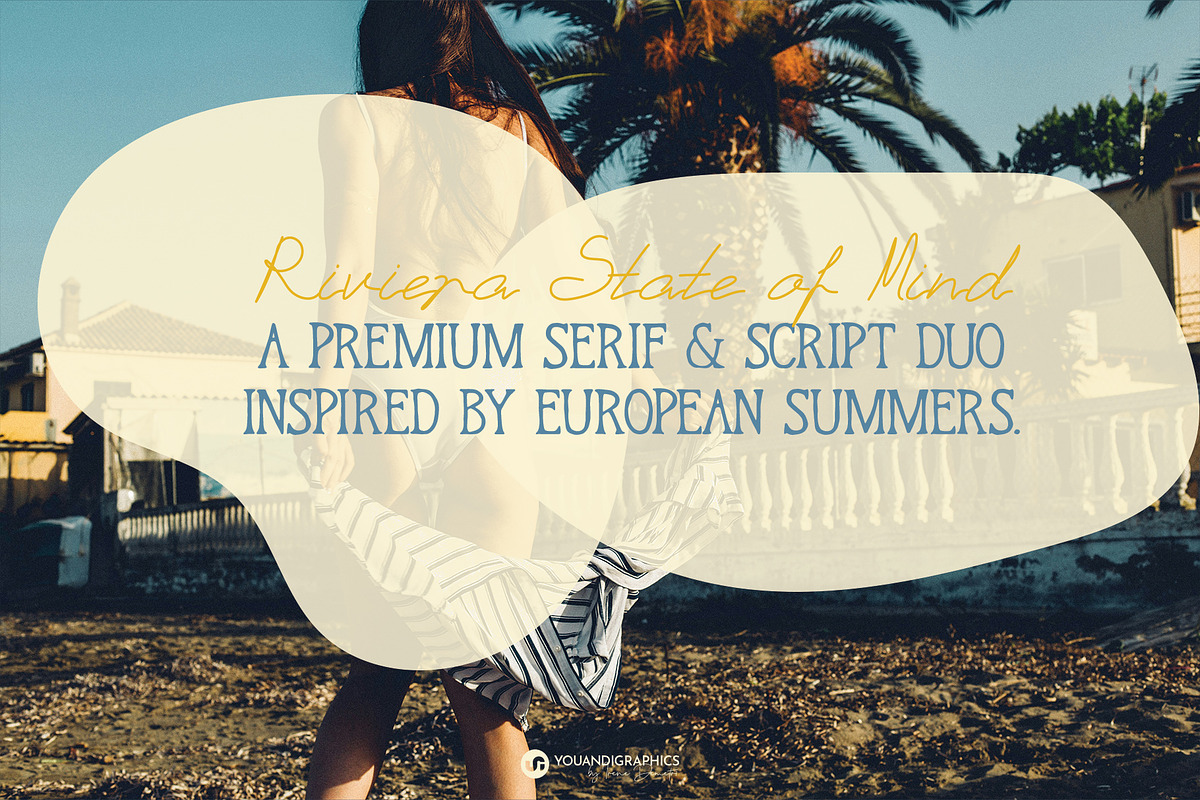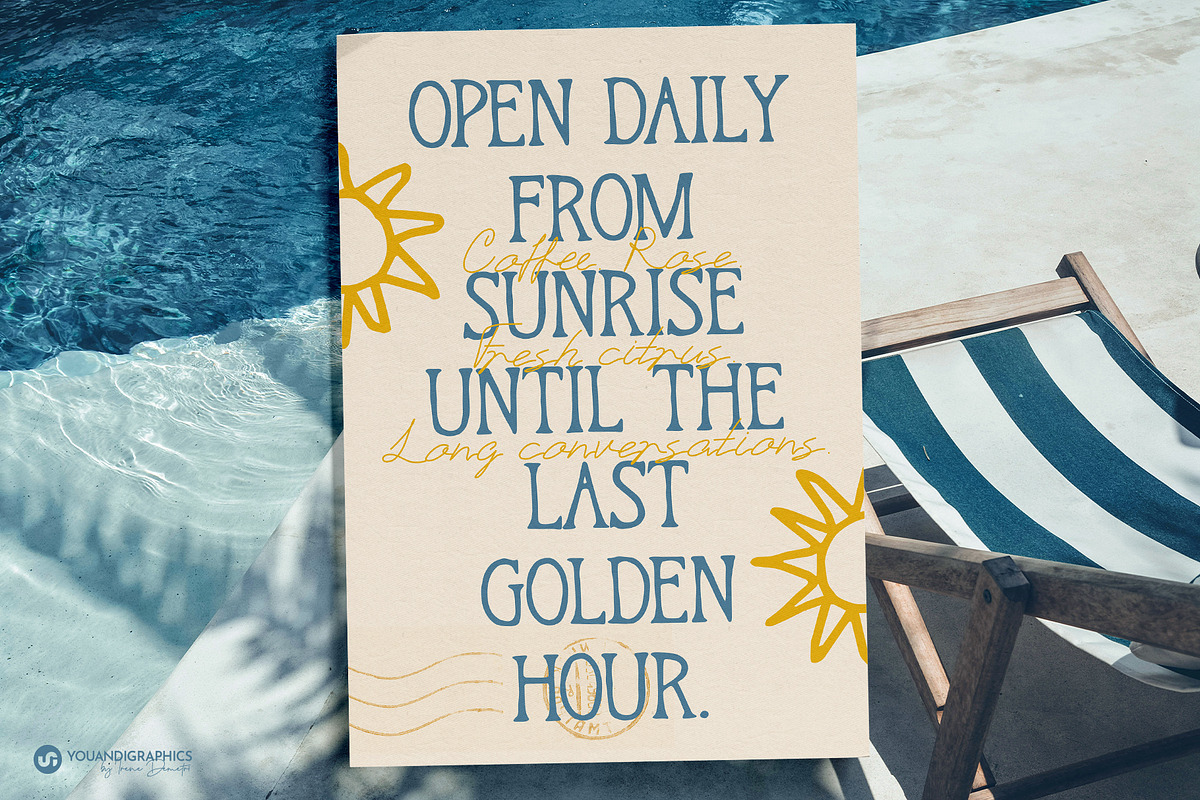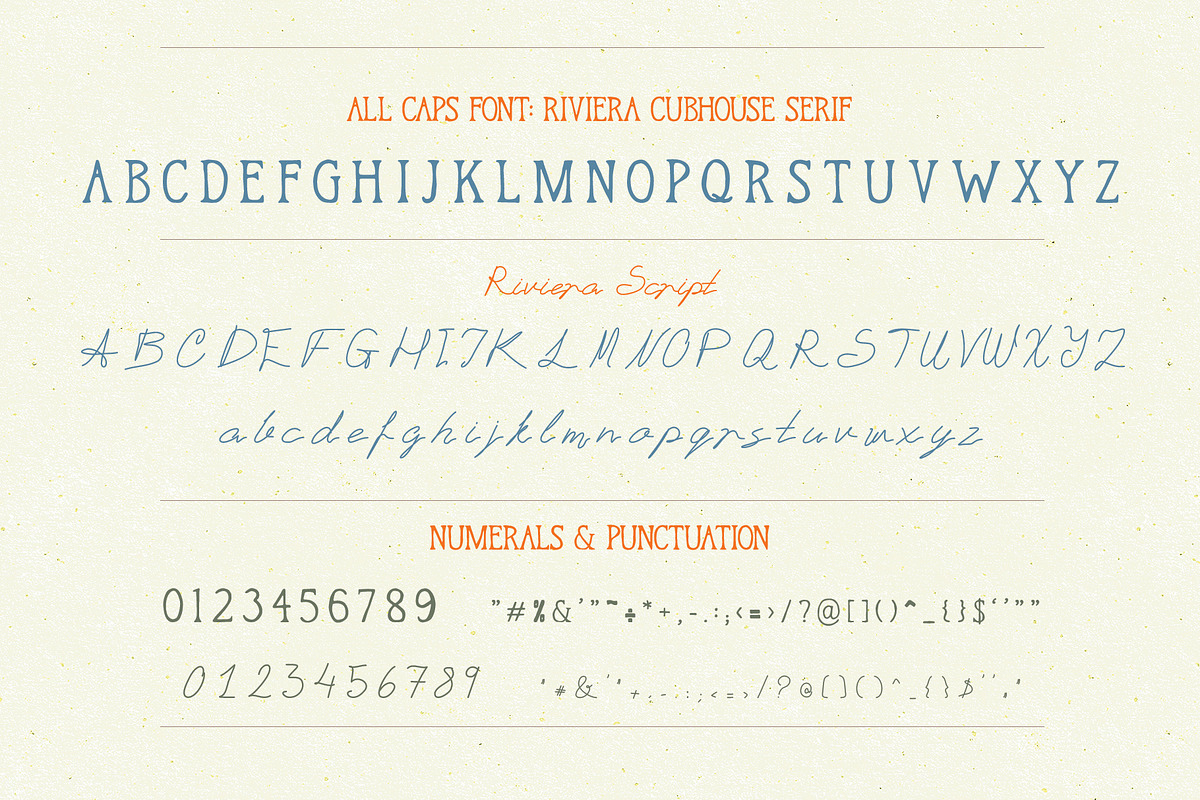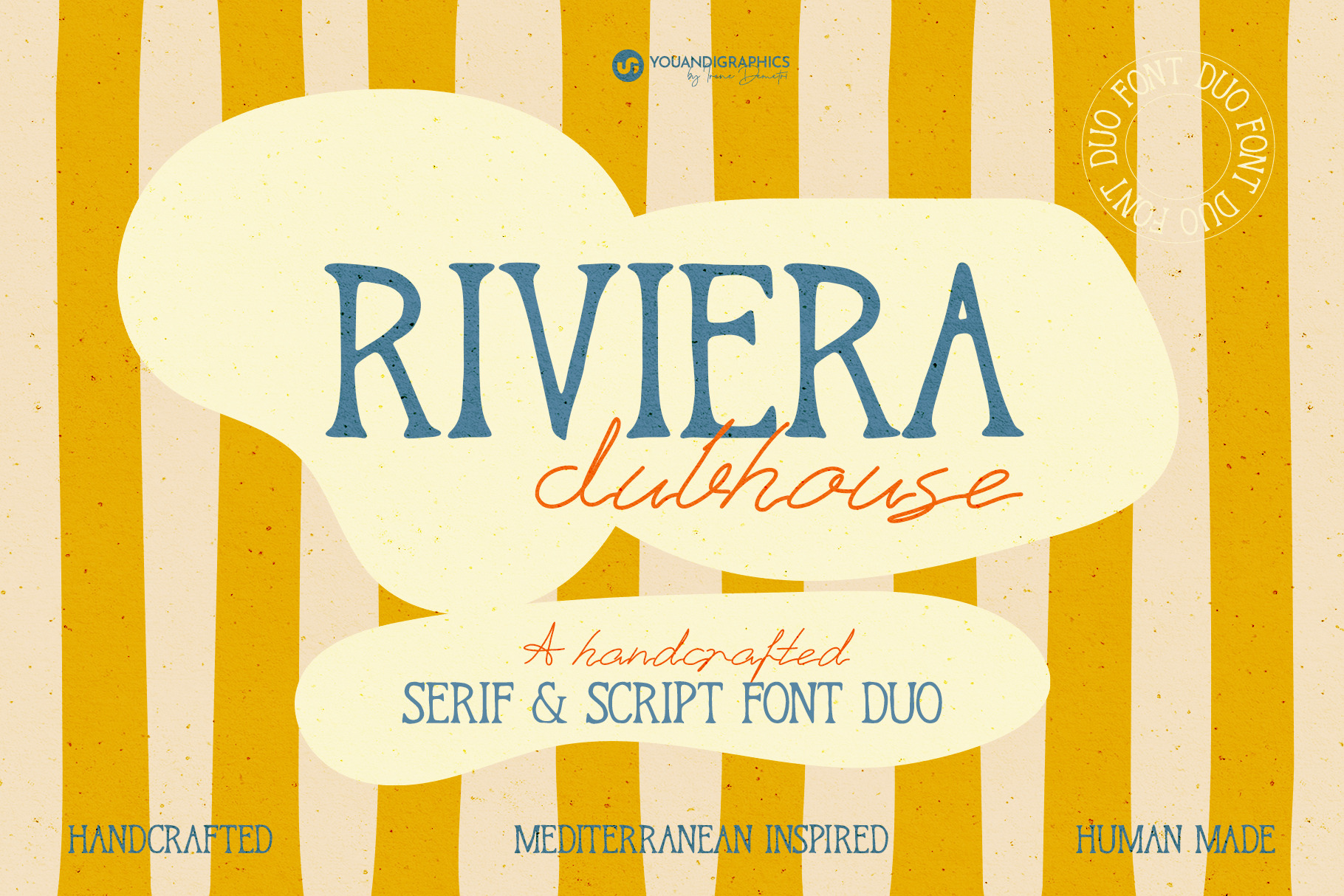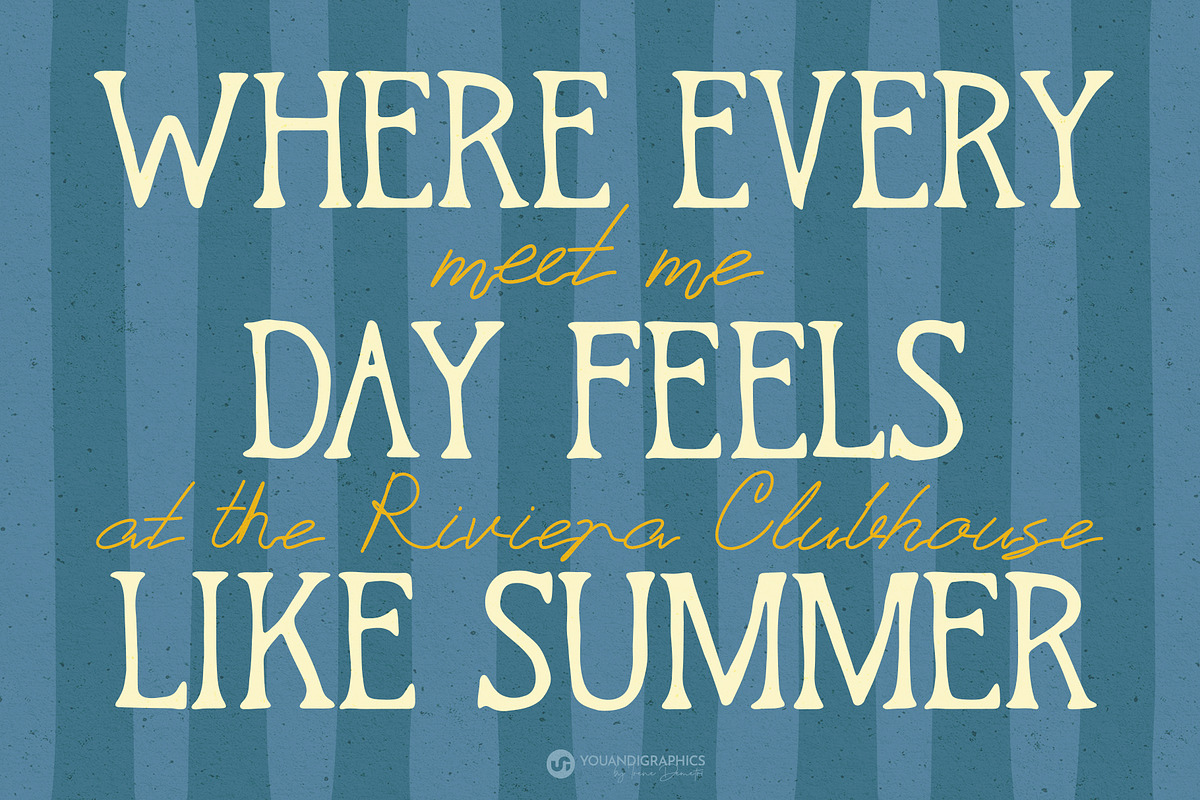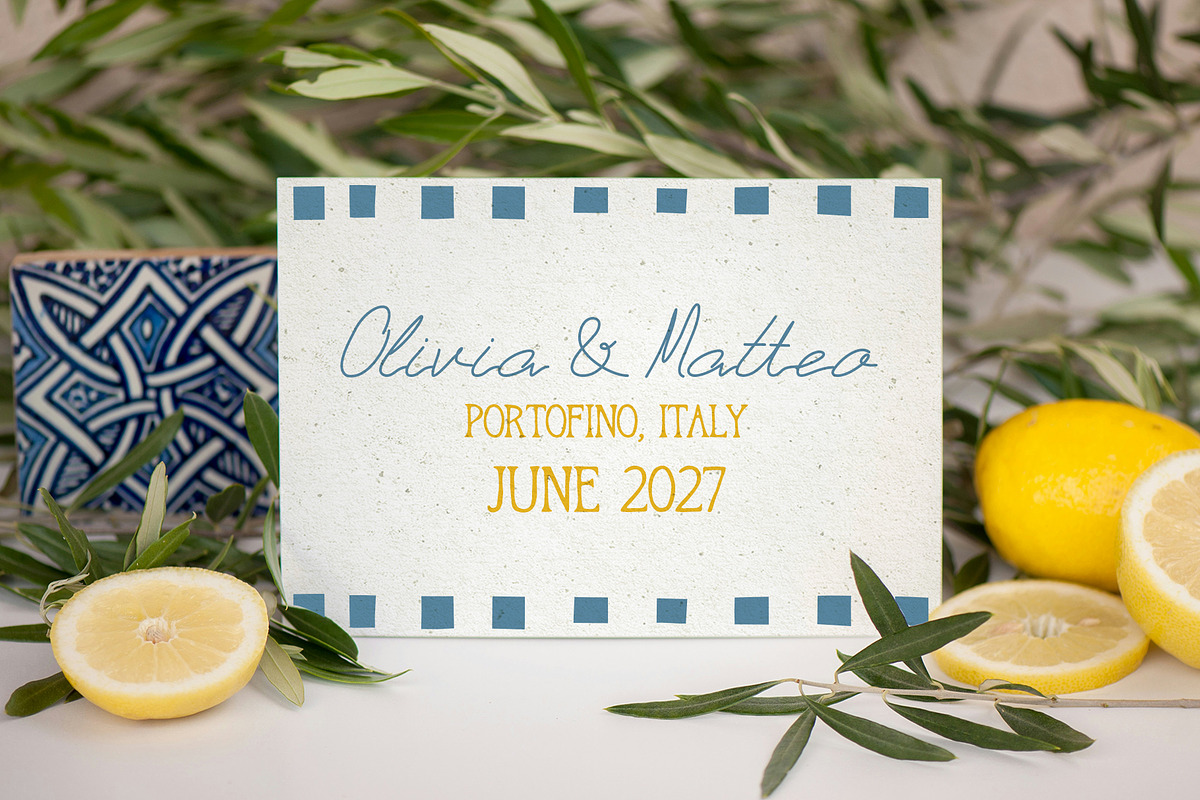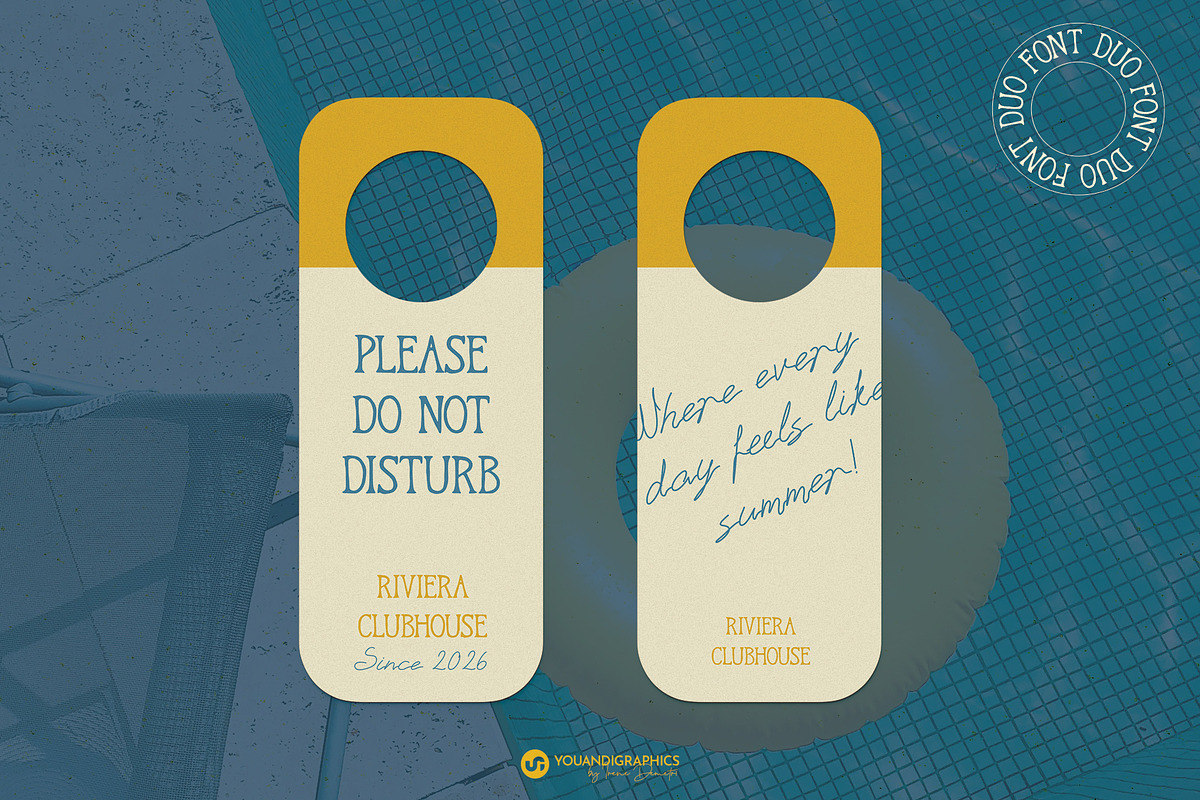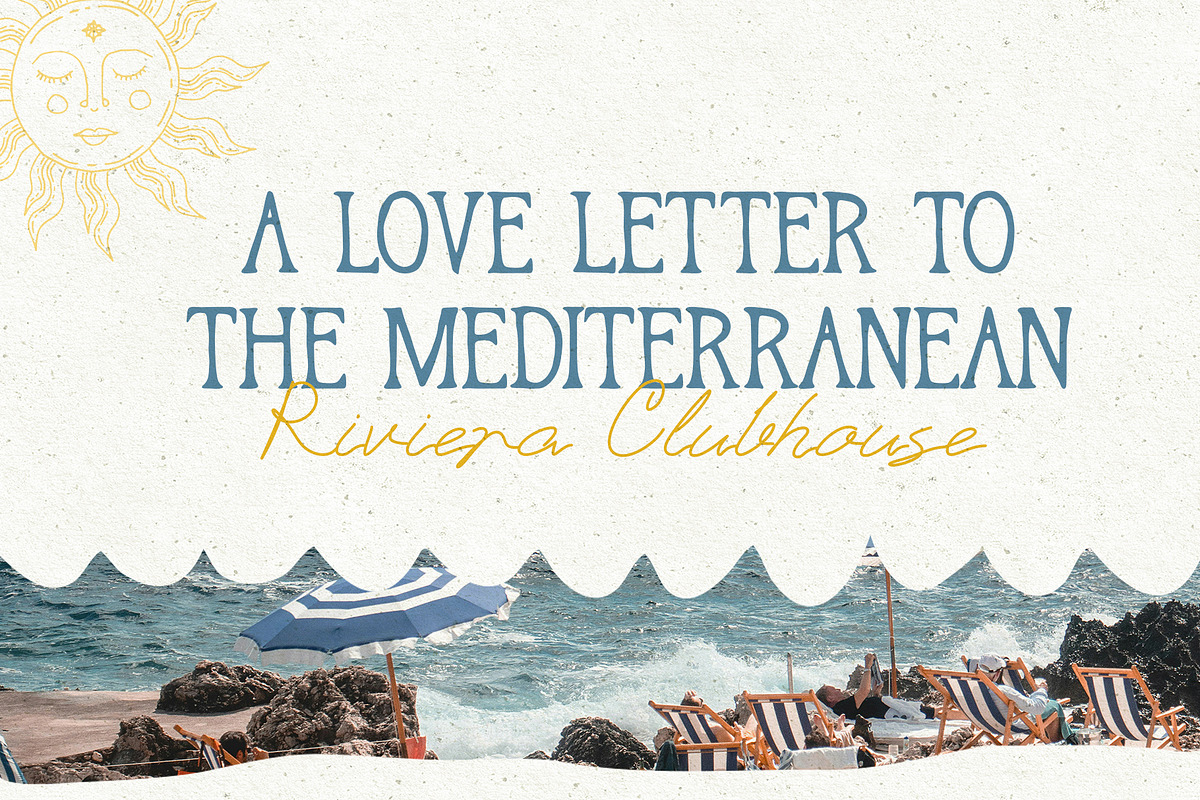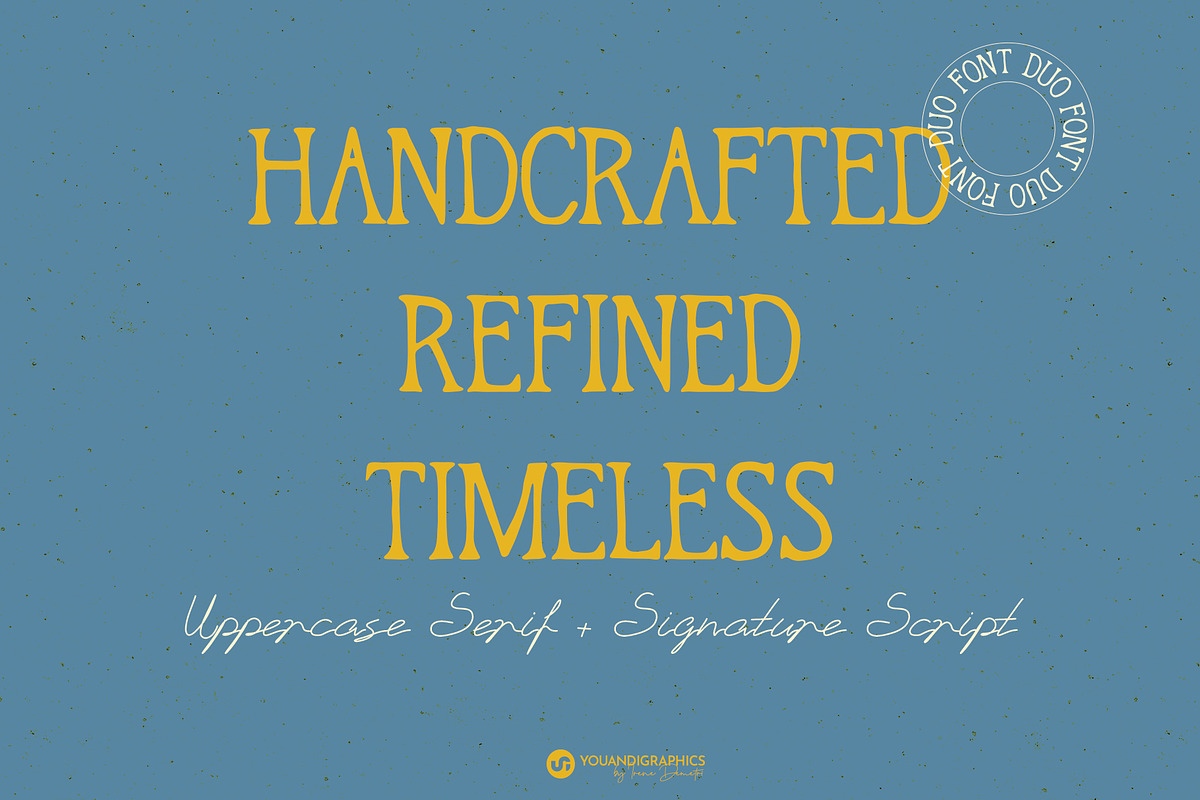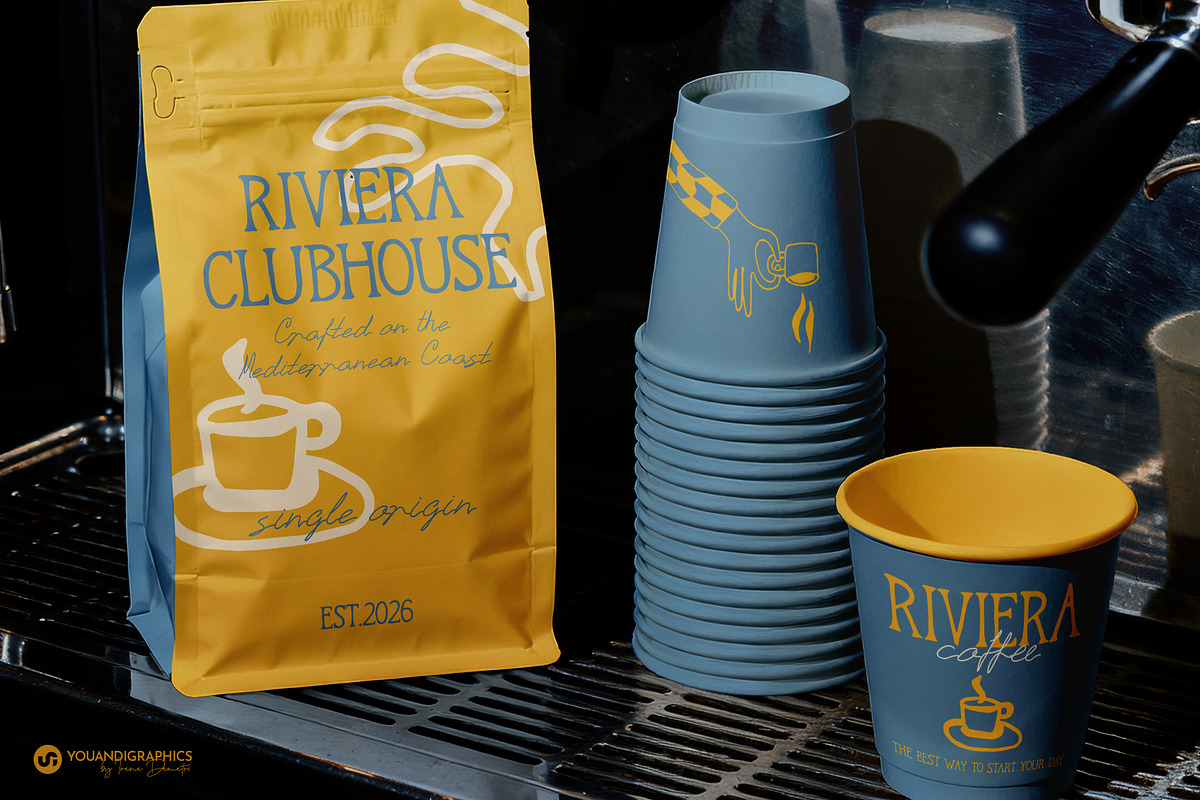
Handwritten Serif & Script Font Duo
Riviera Clubhouse is a handcrafted serif and script font duo inspired by Mediterranean summers, boutique beach clubs, and the timeless elegance of the European Riviera.
Designed by hand, both typefaces celebrate the beauty of natural imperfections, bringing warmth, personality, and authenticity to every project. The all-caps serif offers a refined yet organic presence, while the flowing script adds effortless movement and charm. Together, they create a versatile pairing for brands seeking a distinctive, human-made aesthetic.
Handcrafted all-caps serif font
Handwritten script font
Uppercase & lowercase characters (Script)
Uppercase characters (Serif)
Numerals & punctuation
Riviera Clubhouse was intentionally drawn by hand to preserve the subtle irregularities and rhythm that make handmade lettering feel authentic.
Lifestyle and luxury products
Quotes & creative lettering
Branding & visual identity
Packaging design
Hospitality & boutique hotels
Coffee roasters & cafés
Wine, food & beverage brands
Wedding stationery